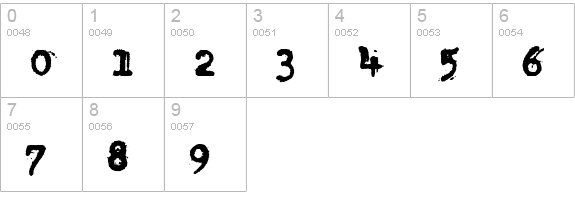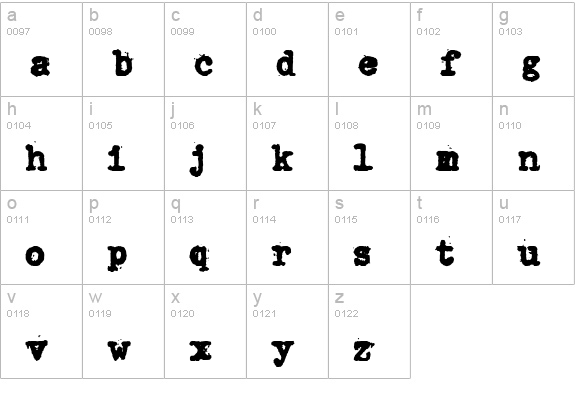
PFDumbOldTypeTwo Heavy Font Details
PFDumbOldTypeTwo Heavy is a heavy, high-impact variant in the PFDumbOldTypeTwo typeface family \xE2\x80\x94 well suited to high-impact headlines, posters, and display advertising.
PFDumbOldTypeTwo Heavy font is a bold and distinctive typeface that exudes a sense of strength and power. Its thick and heavy strokes make a bold statement, perfect for headlines, logos, and other design projects that require a strong and impactful look. This font is ideal for conveying a sense of authority and confidence. What's even better is that PFDumbOldTypeTwo Heavy font is available for free download at FontsMarket.com. This means you can easily access this impressive font and incorporate it into your projects without any cost. Don't miss out on this fantastic opportunity to enhance your designs with the commanding presence of PFDumbOldTypeTwo Heavy font. Download it now and make a bold statement with your creative work.